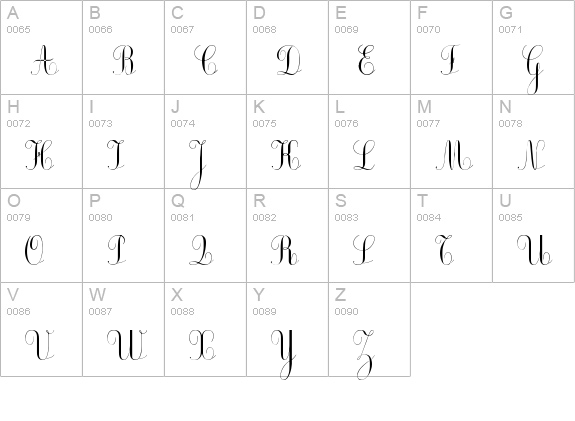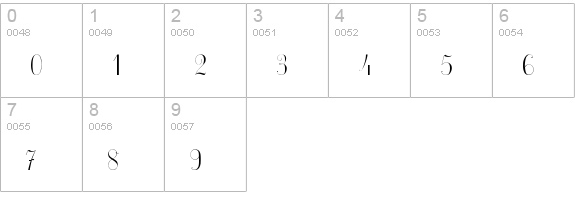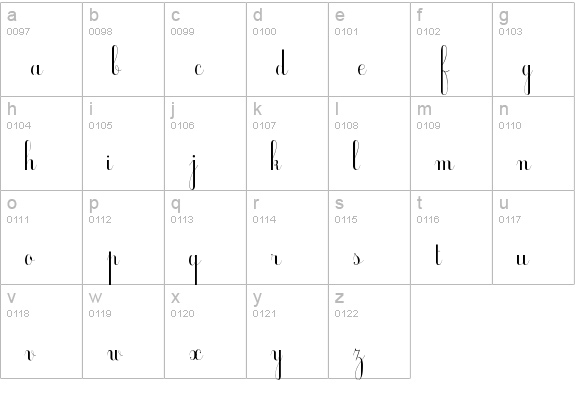
Ecolier_court Font Details
Ecolier_court is a charming handwritten font that exudes creativity and elegance. Its delicate strokes and playful curves make it perfect for a wide range of design projects, whether it's a children's book cover, a birthday invitation, or a logo for a boutique brand. This font brings a sense of nostalgia, evoking memories of youthful handwriting and old school notebooks. Its simplicity and legibility make it easy to read, while its unique style adds a touch of personality to any text. One of the best things about Ecolier_court is that it is free! That's right, you can freely download this font at FontsMarket.com. This means that you can use it for personal or commercial projects without any limitations. With Ecolier_court, you have the freedom to let your creativity run wild and create beautiful designs that truly stand out. So why wait? Download Ecolier_court today and add a touch of elegance and whimsy to your designs. Whether you're a professional designer or just someone who loves to get creative, this font is sure to become a favorite in your collection. Don't miss out on this amazing opportunity to freely access this font and take your designs to the next level.